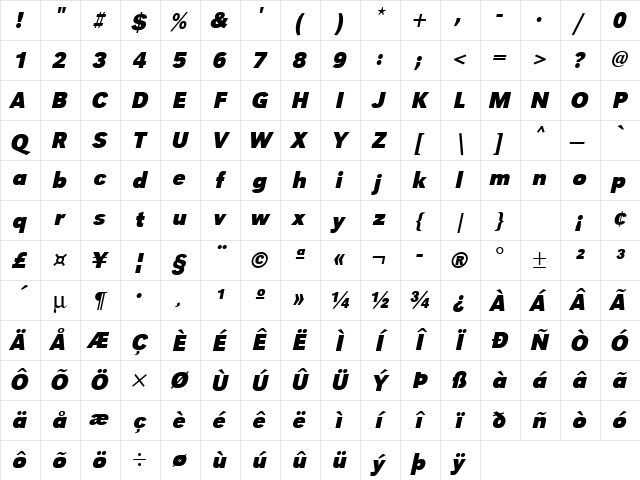
Complete URWGroteskTNar Bold Oblique glyph index. Displaying only characters natively supported by URWGroteskTNar Bold Oblique font.
URWGroteskTNar takes a clean, functional approach - its unadorned letterforms prioritise legibility and work reliably across screen and print environments. The slanted form adds forward momentum and visual energy. Its bold stroke weight gives it real presence on the page.